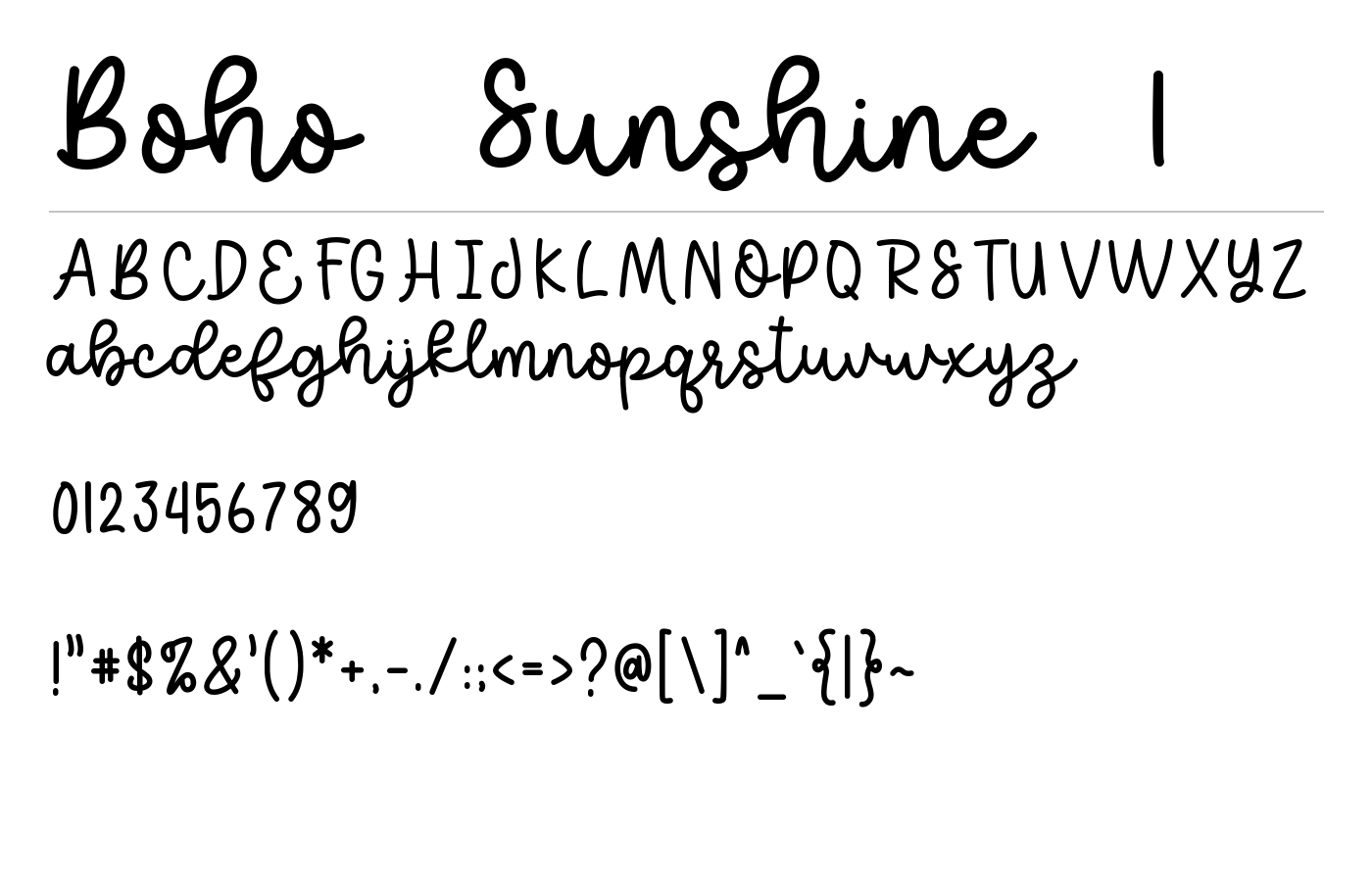
Boho Sunshine 1 is a playful, handwritten script font that combines a casual, friendly vibe with clear legibility. Its rounded, slightly irregular letterforms give it a warm and approachable feel, making it ideal for creative projects, children's designs, and informal branding that seeks an inviting, personal touch. This font works well in logos, social media graphics, and packaging where a cheerful, handcrafted aesthetic is desired.
Boho Sunshine 1 Font
About Boho Sunshine 1 Font
| Font family | Boho Sunshine 1 Font |
| Designer | Letter Art Studio |